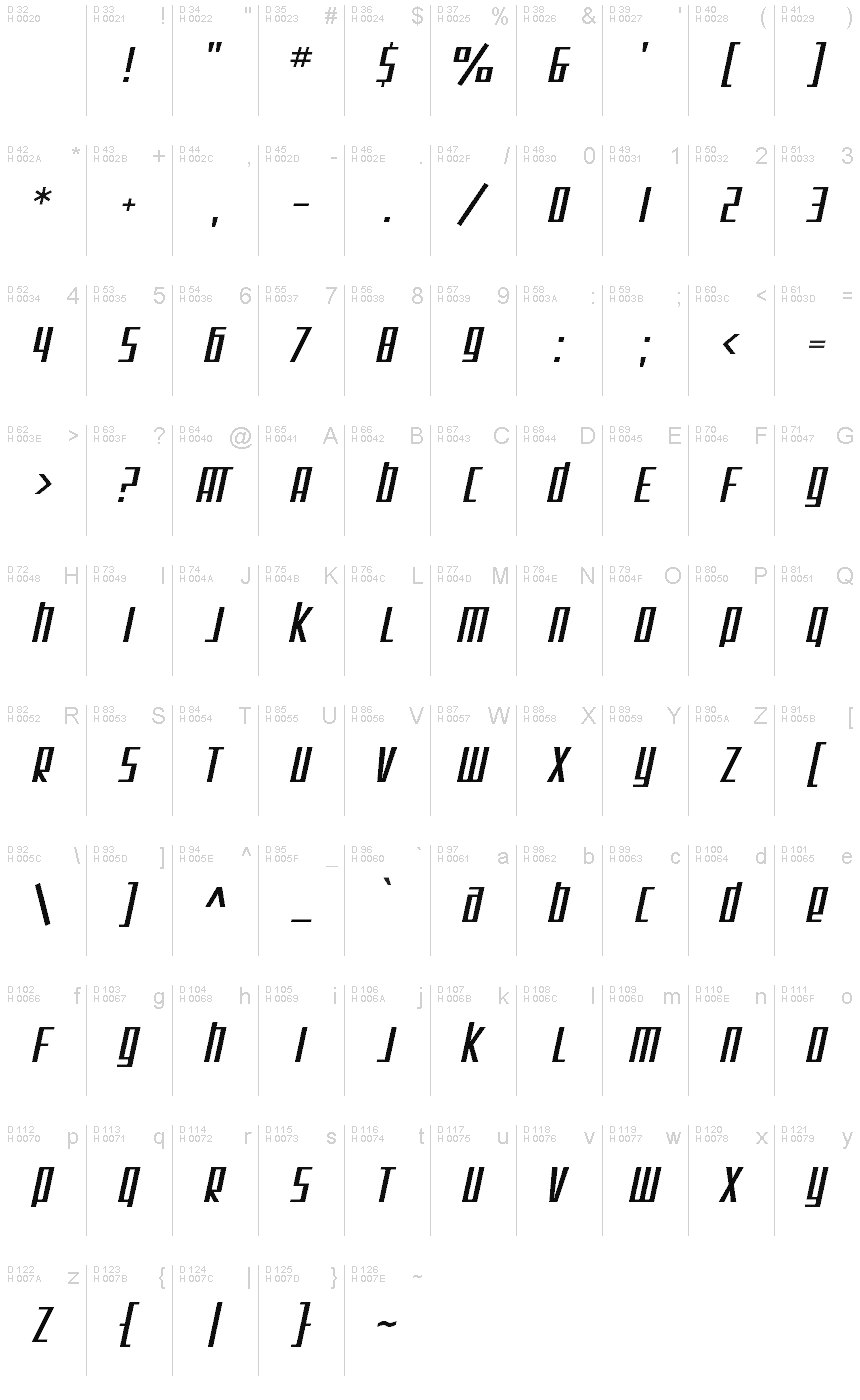
SF Square Root Oblique
SF Square Root Oblique is a captivating font that showcases the perfect blend of modernity and creativity. Designed by the renowned ShyFonts Type Foundry, this font belongs to the SF Square Root font family. With its unique characteristics, it is perfectly suited for a wide range of creative projects.
As a display font, SF Square Root Oblique stands out in any design with its bold and eye-catching appearance. Its semi-light weight adds an elegant touch, while the extra-condensed width allows for efficient use of space without compromising on legibility.
The techno style of this font makes it particularly suitable for projects that require a futuristic or high-tech aesthetic. Whether used in logo designs, advertisements, or website headers, SF Square Root Oblique brings an element of sophistication and innovation to any visual composition.